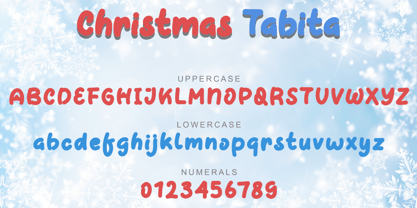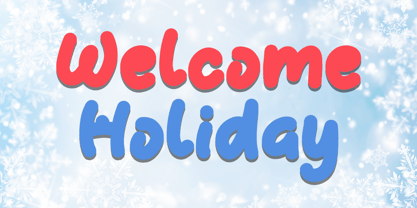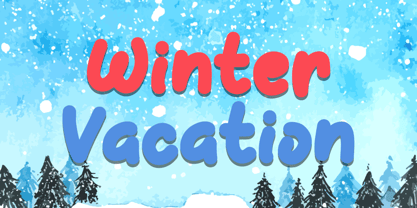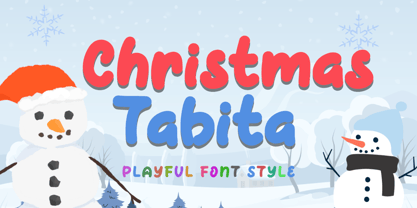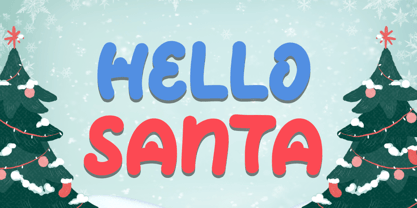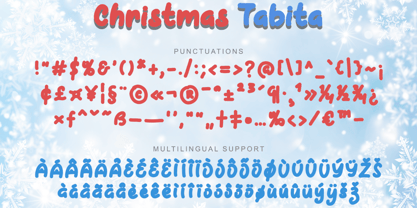
Christmas Tabita
by Yoga Letter
The Christmas Tabita Font Family was designed by Isroni Yoga Prasetya and published by Yoga Letter. Christmas Tabita contains 1 styles. More about this family
"Christmas Tabita" is a cute and unique display font. It features uppercase and lowercase letters, numerals, punctuations, and multilingual support. It's perfect for Christmas, banners, posters, print, branding, stickers, Thanksgiving, spring, winter, holidays, movie titles, book titles, magazines, YouTube, social media, gifts, Easter, summer, teaching, education, and more.
Designers: Isroni Yoga Prasetya
Foundry: Yoga Letter